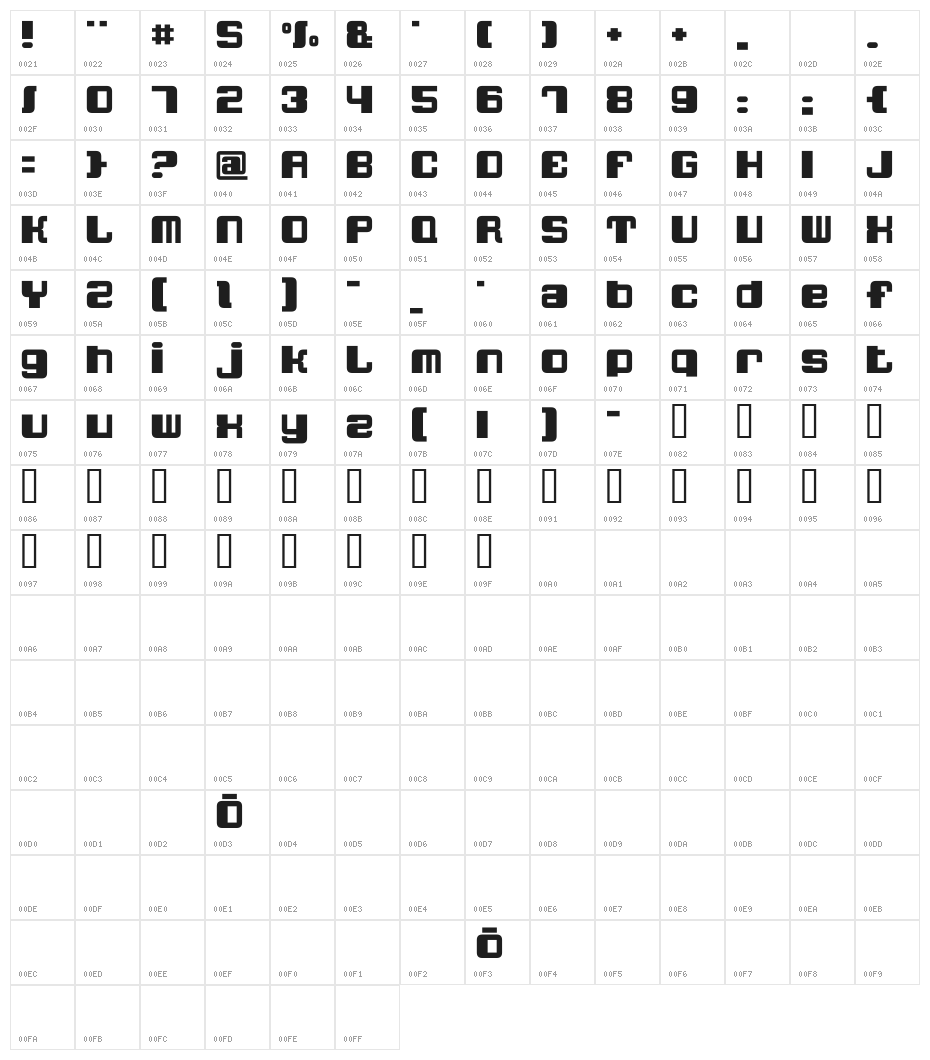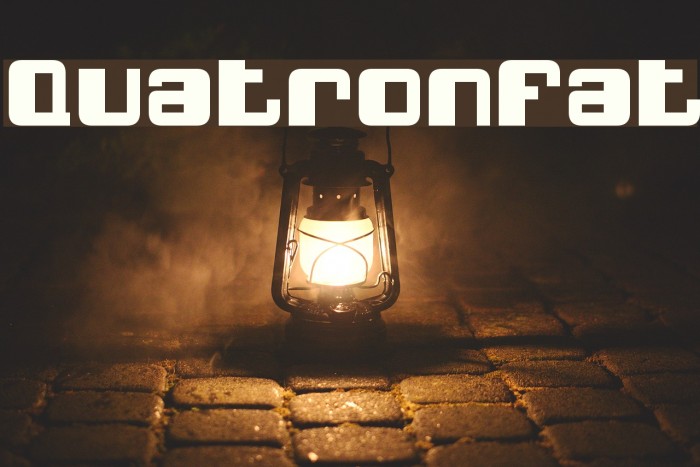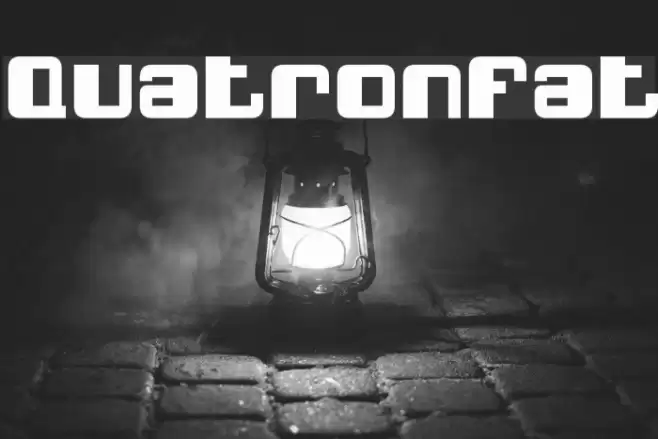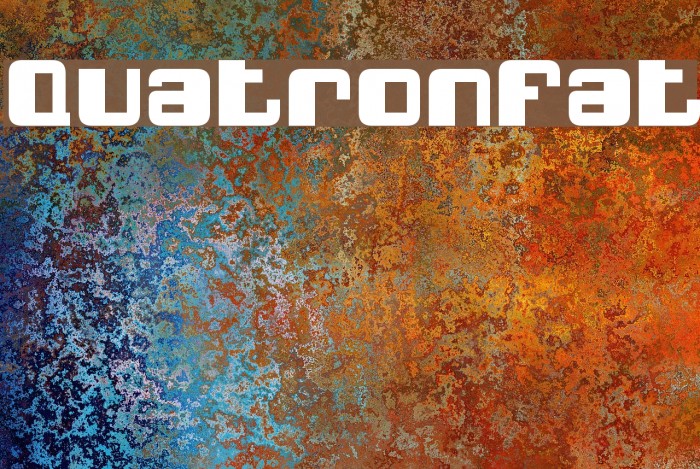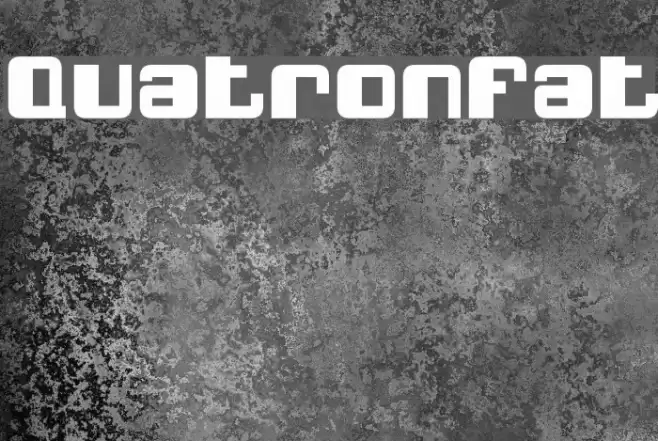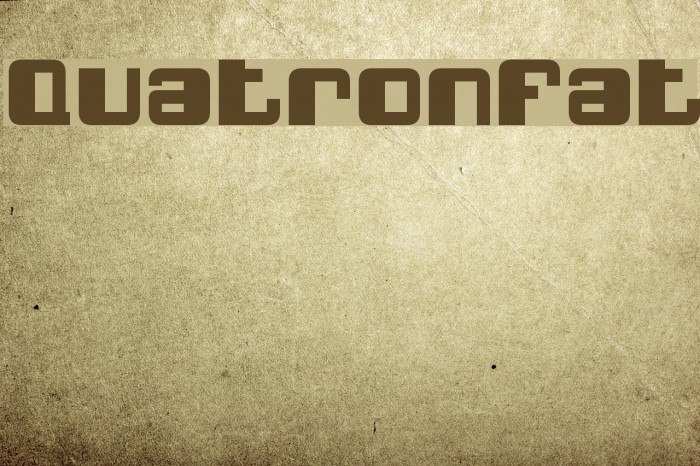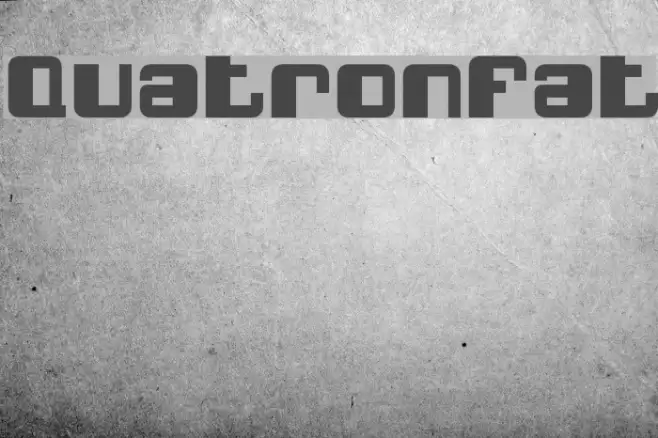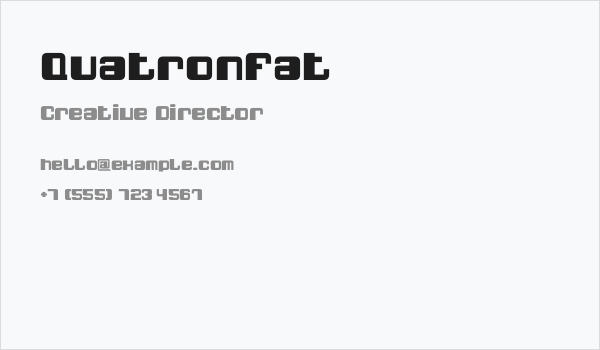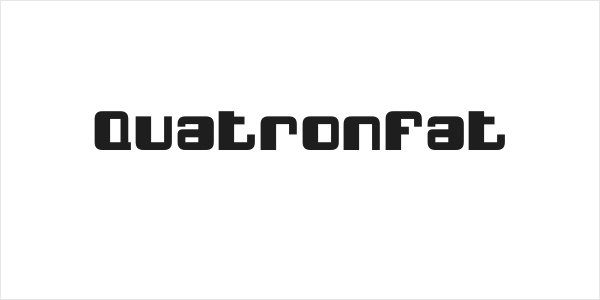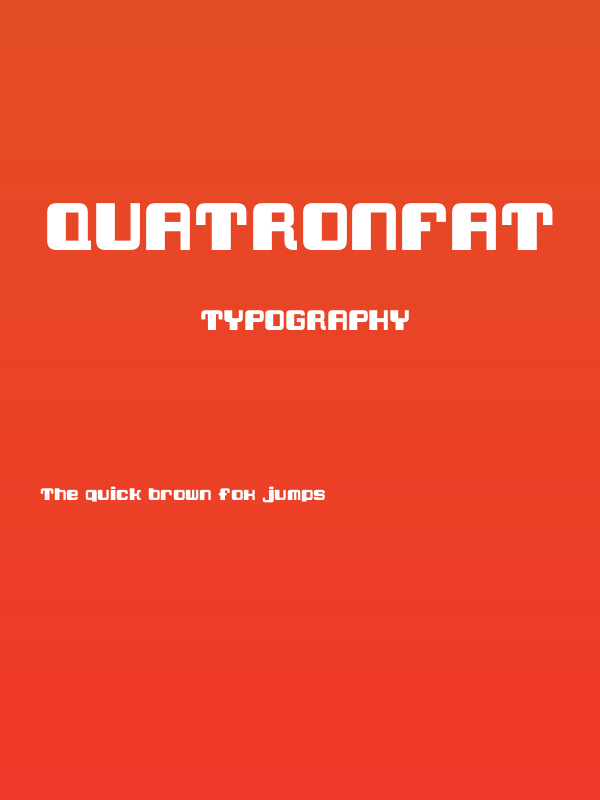
QuatronFat Font
This font features a bold and geometric design with a strong presence. The characters are blocky and robust, with a uniform thickness that gives them a solid and sturdy appearance. The uppercase and lowercase letters maintain a consistent style, with rounded edges that soften the overall look. The numerals are equally bold, ensuring readability and impact. Special characters are designed to match the boldness of the alphabet, making them suitable for attention-grabbing designs. The font's style is modern and industrial, making it ideal for projects that require a strong visual statement.
| Proposed Projects | Ideal for branding, headlines, posters, and signage that require a strong visual impact. |